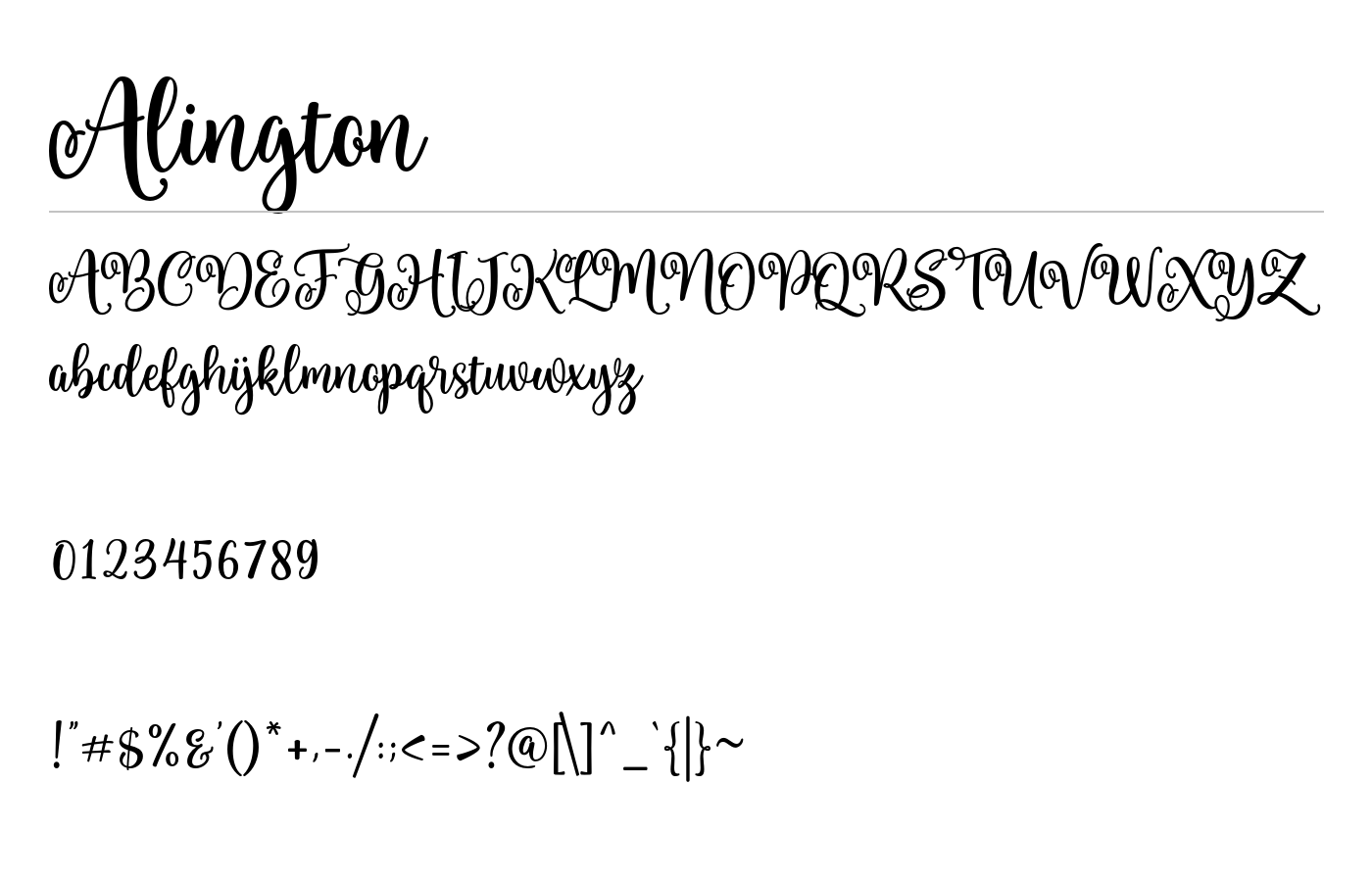
Alington is an elegant script font featuring smooth, flowing strokes and charming swashes that give its uppercase letters a decorative flair. Its slender weight and moderate contrast create a refined, handwritten feel that suits invitations, branding, and creative projects seeking a stylish yet approachable personality. With its clear lowercase forms and expressive capitals, it works beautifully for logos, packaging, and headlines where a touch of sophistication and warmth is desired.
Alington Font
About Alington Font